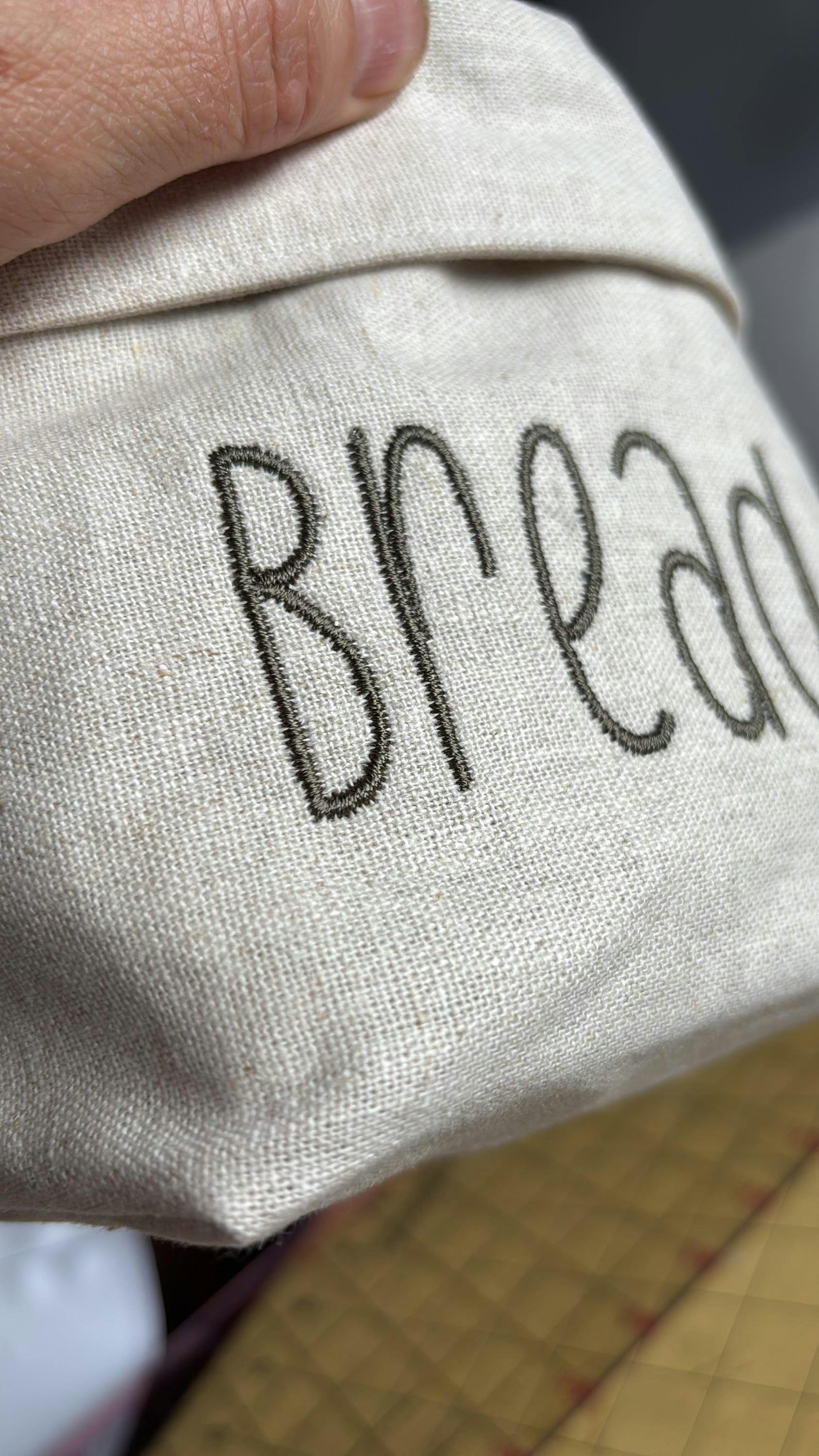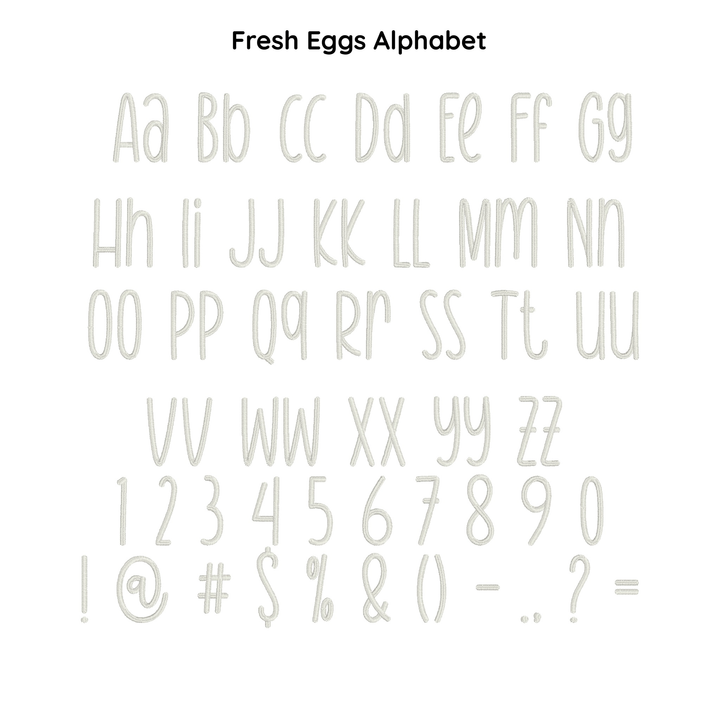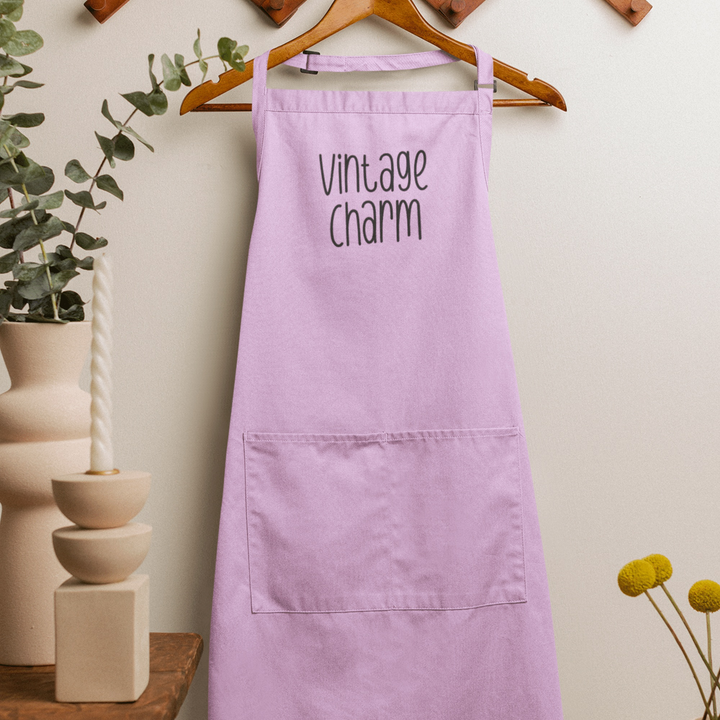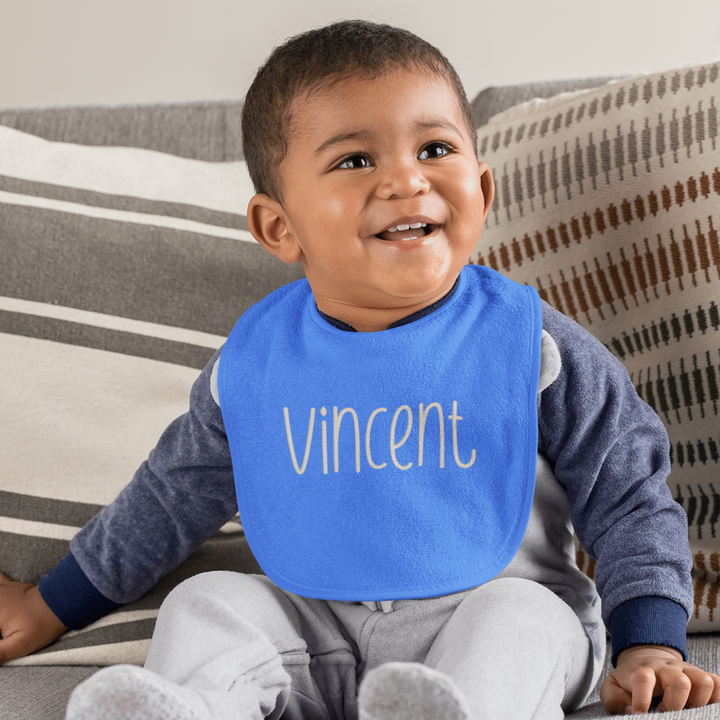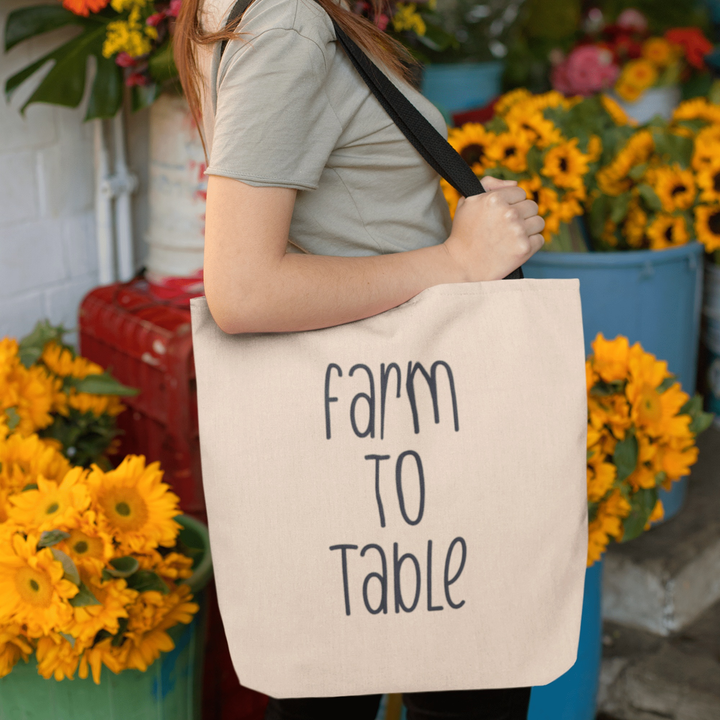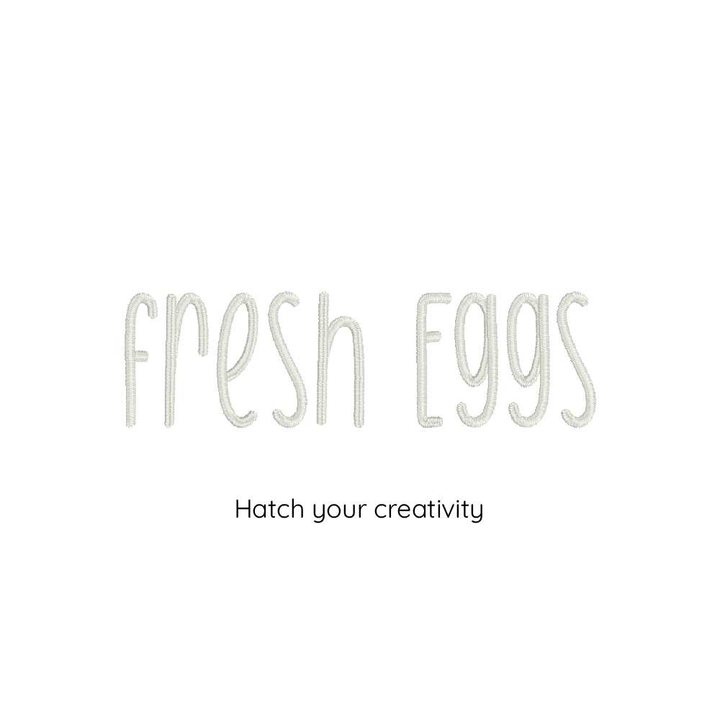
Photograph of Fresh Eggs embroidery font
Photograph of Fresh Eggs embroidery font alphabet
Photograph of a tote bag featuring Fresh Eggs font
Photograph of an apron featuring Fresh Eggs font
Photograph of a baby wearing a bib featuring Fresh Eggs font
Fresh Eggs Digital Embroidery Font
"Fresh Eggs" is the ultimate digital embroidery font for all your farmhouse-inspired creations! Inspired by the cozy warmth and charming simplicity of the countryside, our font is perfect for adding that touch of rustic elegance to your embroidery projects. With its beautifully balanced, hand-crafted lettering, "Fresh Eggs" effortlessly evokes the peaceful ambiance of a sunlit farmhouse kitchen where fresh eggs are gathered daily. Whether you're stitching charming kitchen towels, personalized aprons, or delightful wall art, "Fresh Eggs" is the ideal choice to bring a wholesome touch of farmhouse chic to your creations. Get ready to stitch your way into the heart of country living with the "Fresh Eggs" digital embroidery font today!